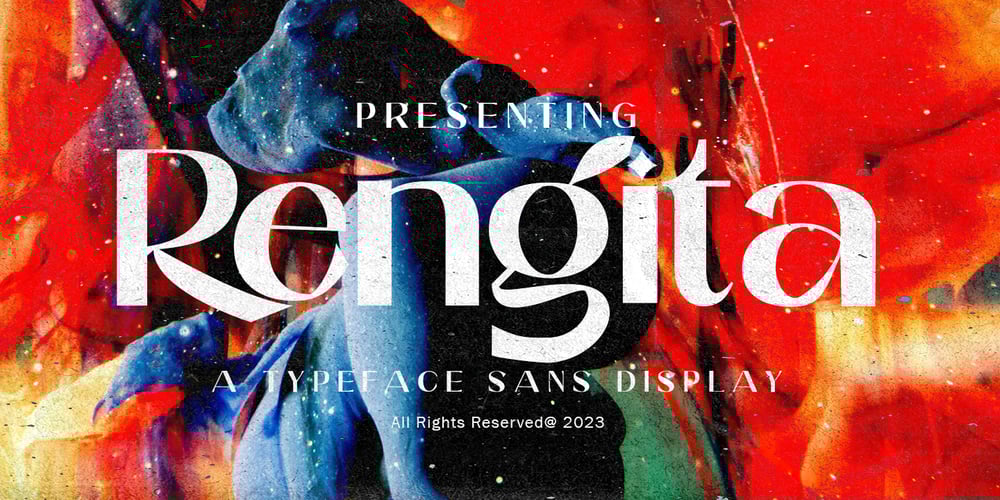
Rengita Font Family was designed by khaidir and published by Gatype. Rengita contains 1 styles and family package options. Rengita is a serif font with a luxurious, elegant, modern, unique and classy look. This font was specially created for luxury themed projects, branding projects, Magazine, Social Media, Branding, Logos, website headers or simply as a stylish text overlay to any background image. and Many more need a Luxury touch.Rengita includes full set:Ligature stand discretionary Ligatures uppercase and lowercase multilingual character number punctuationIf there’s anything else you’re not sure about, feel free to message me :)That’s it! Have fun using Rengita Serif! Display!!